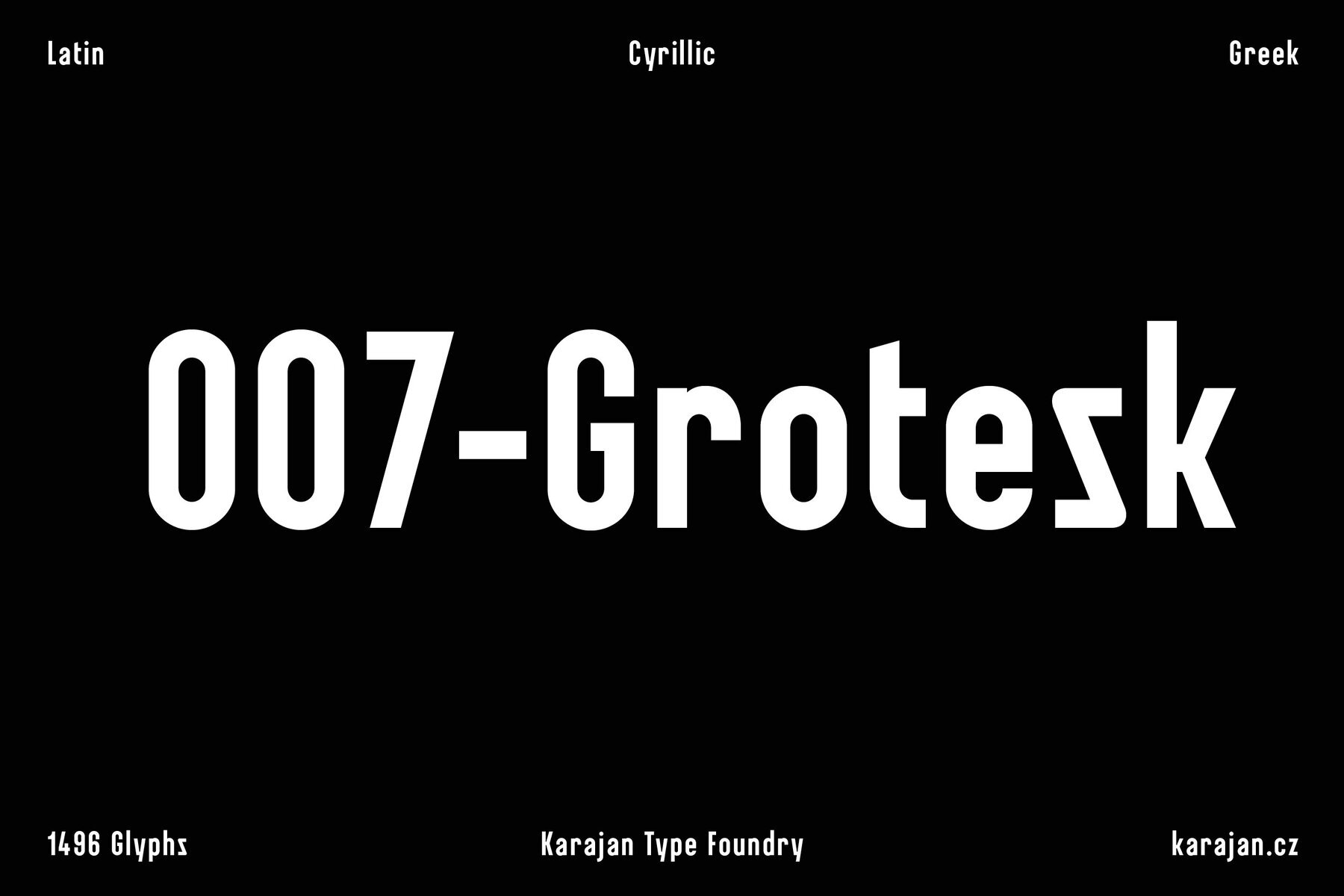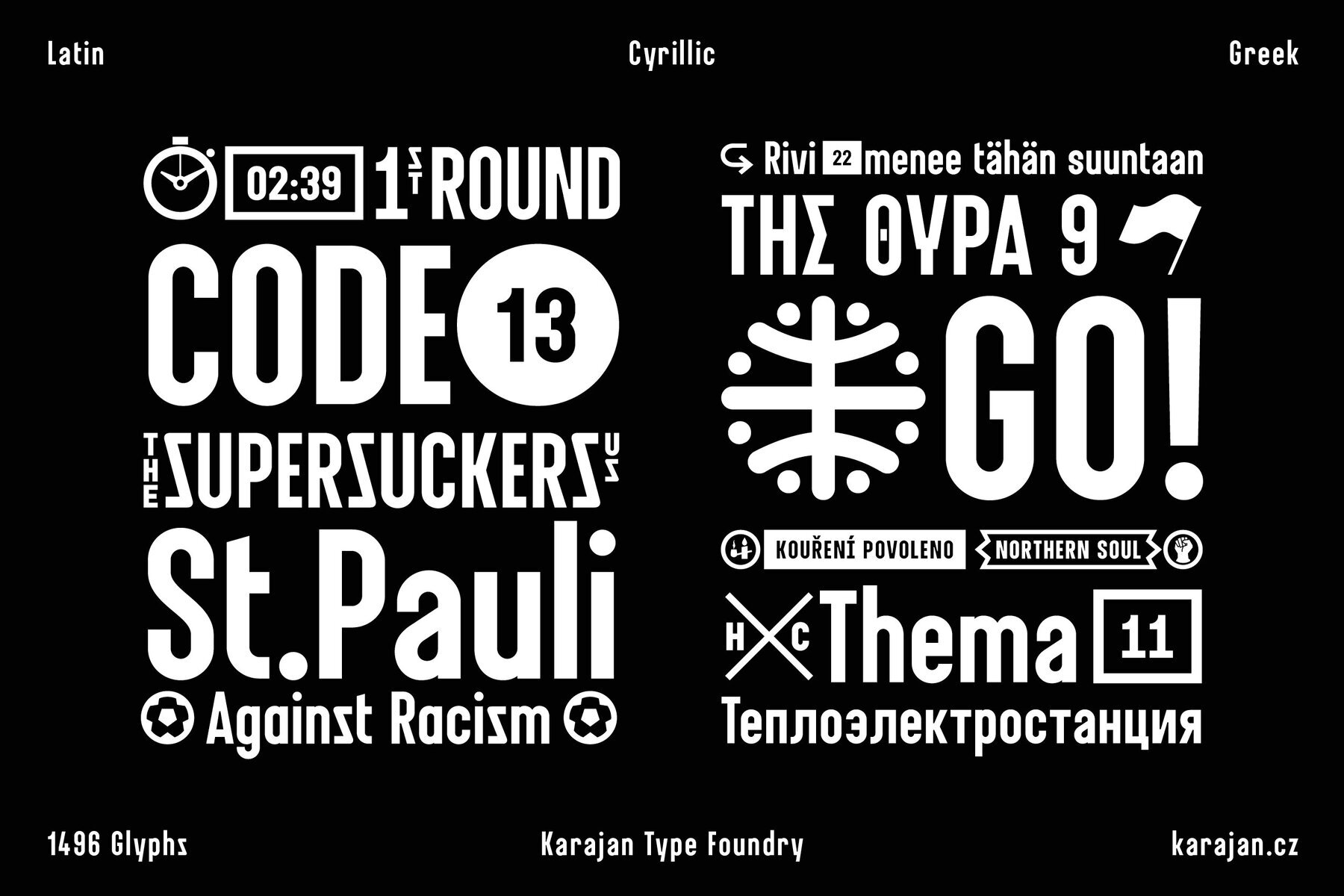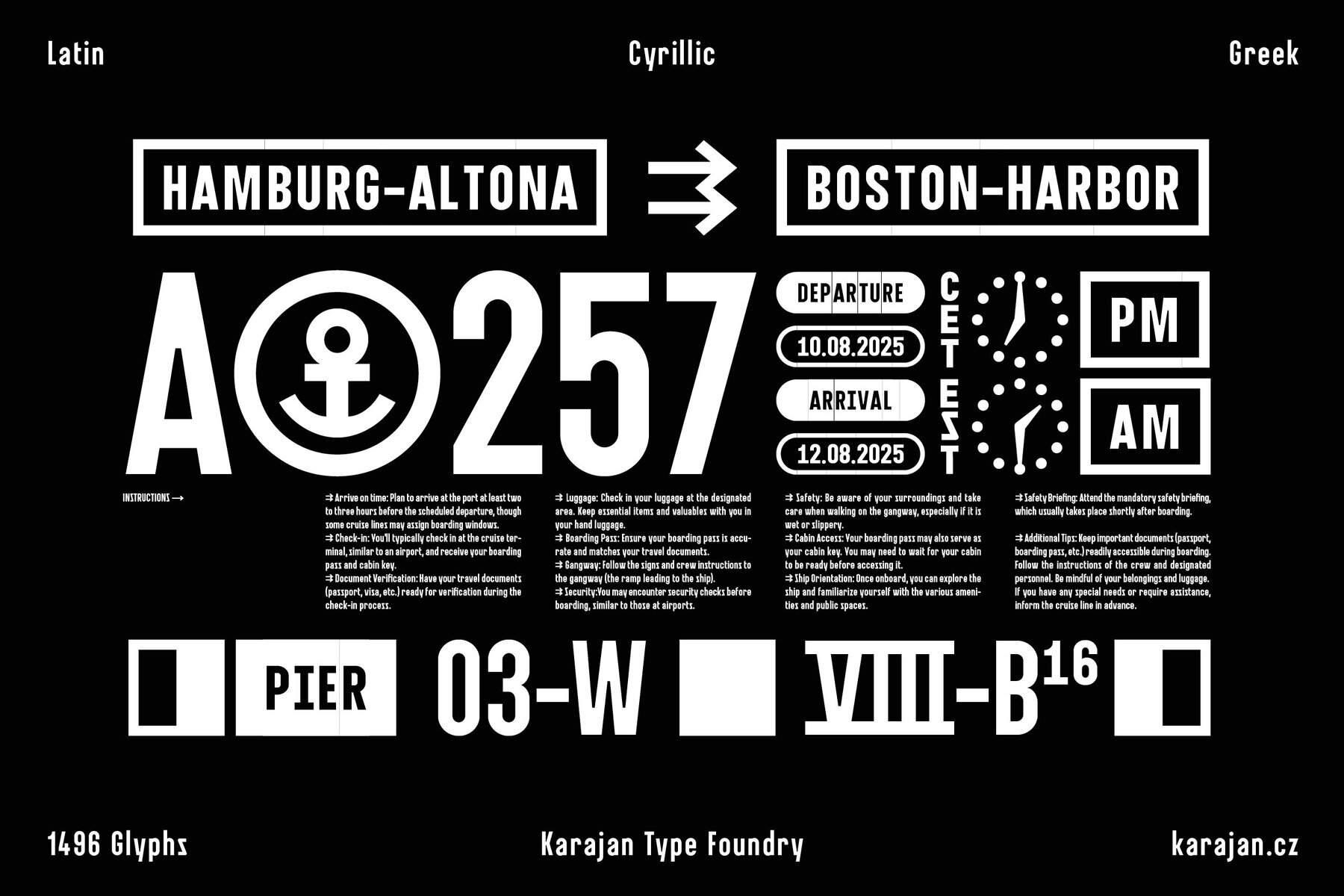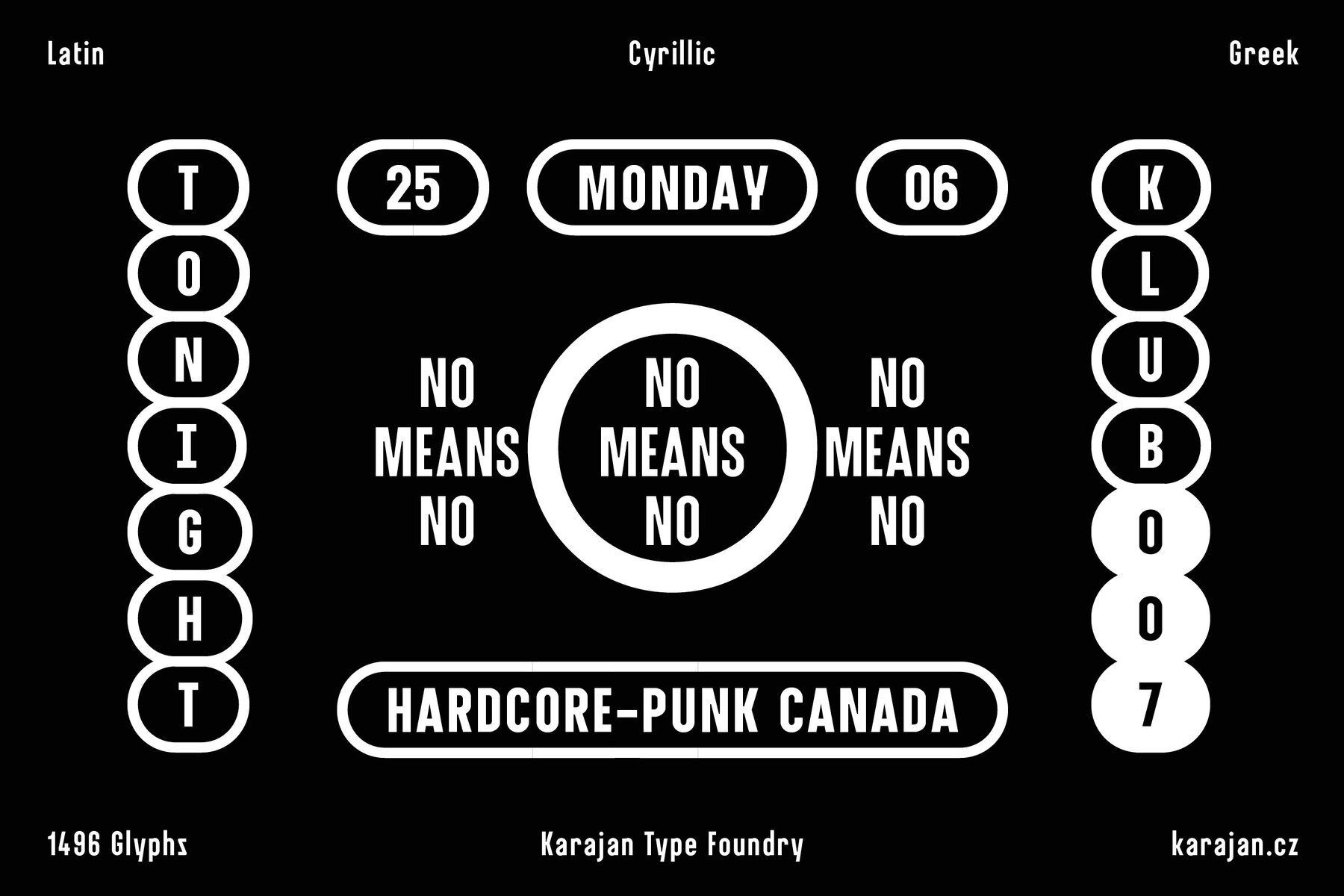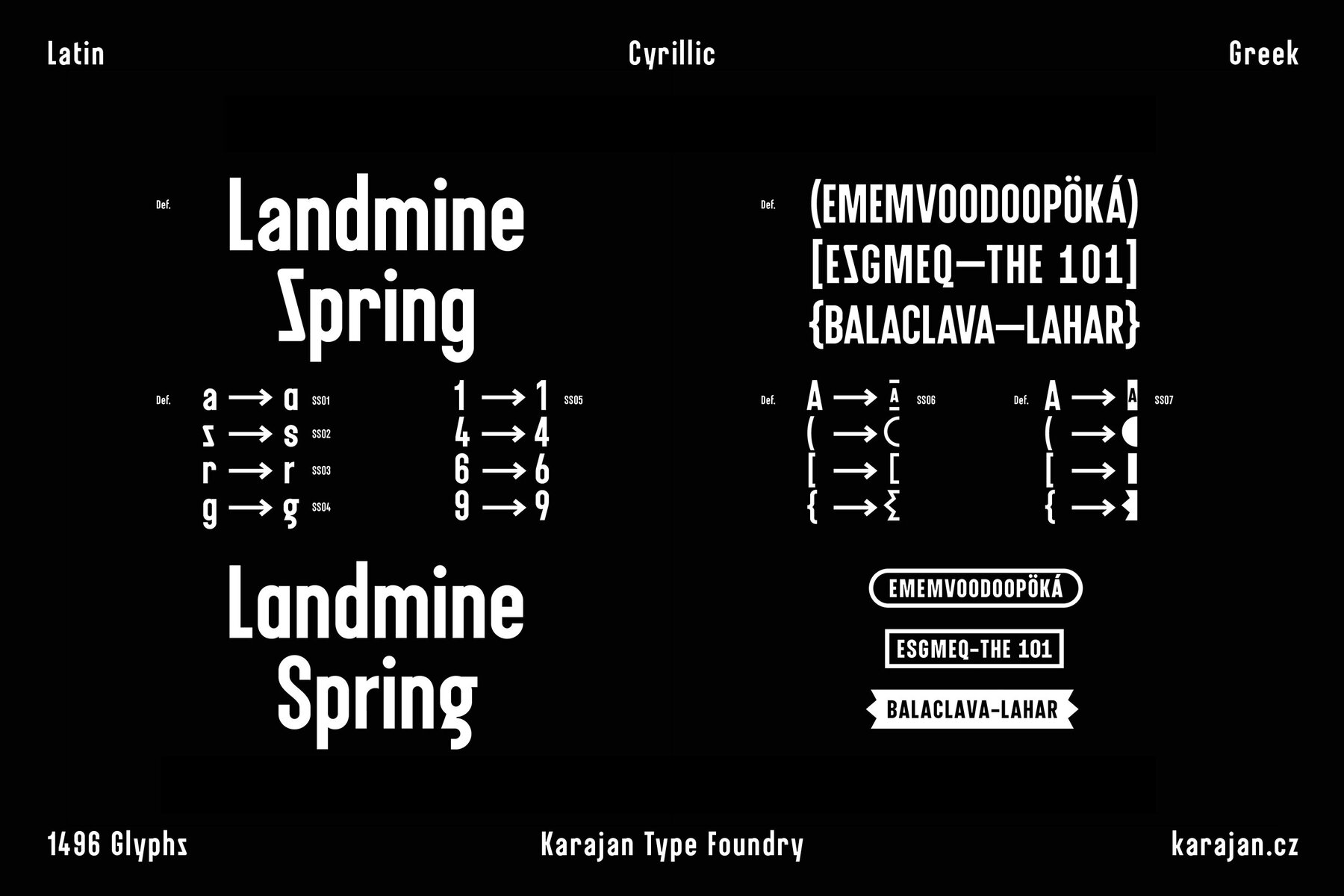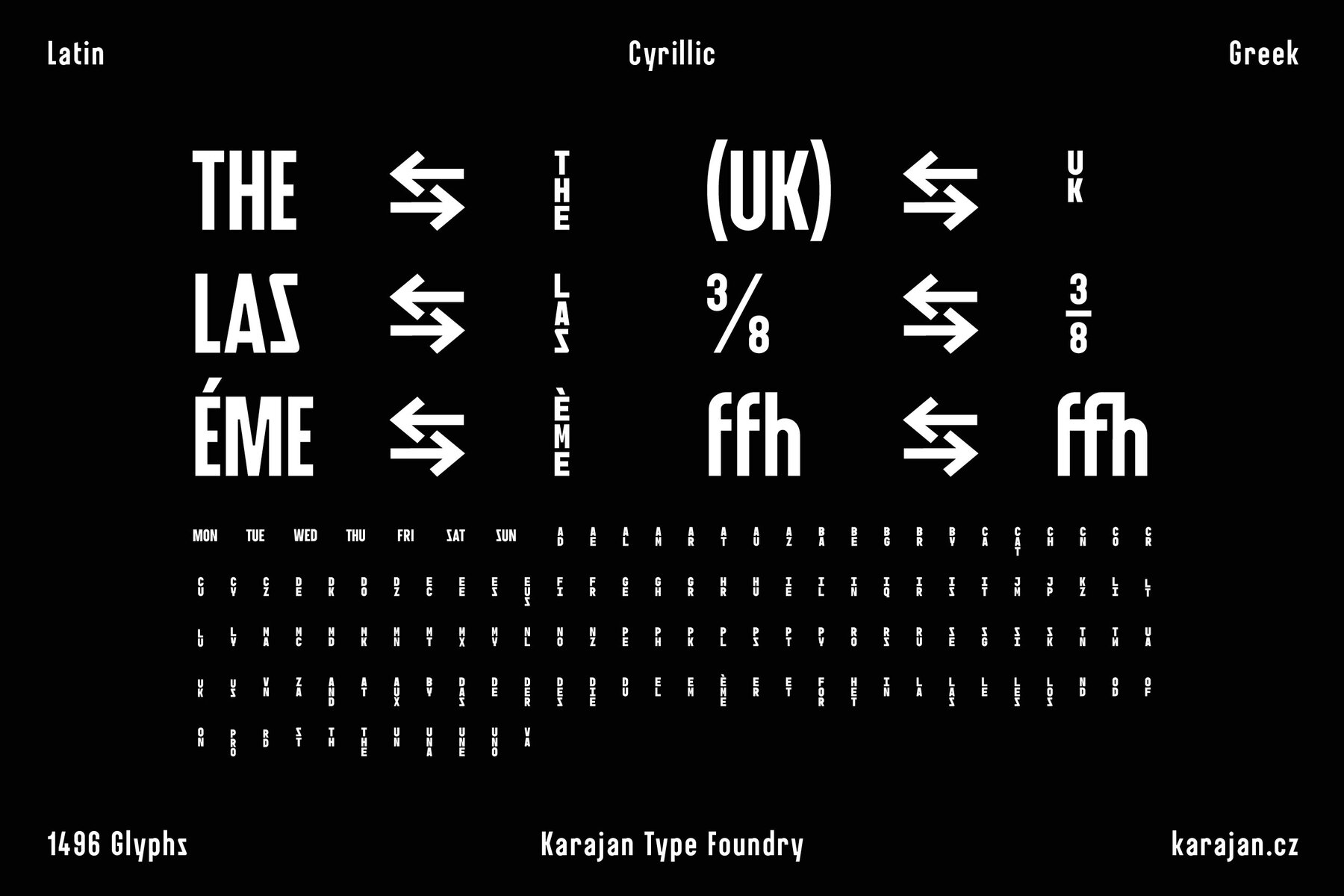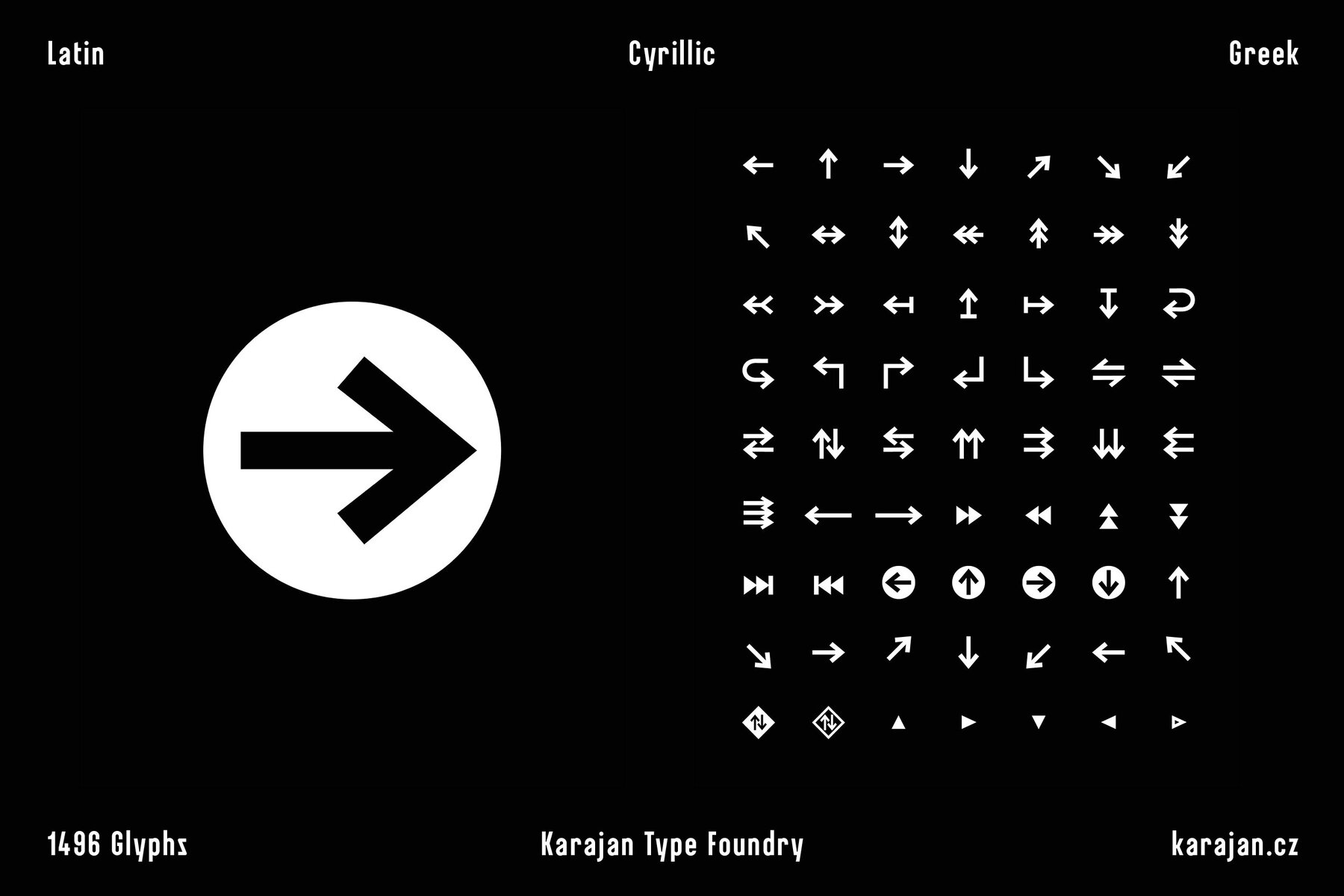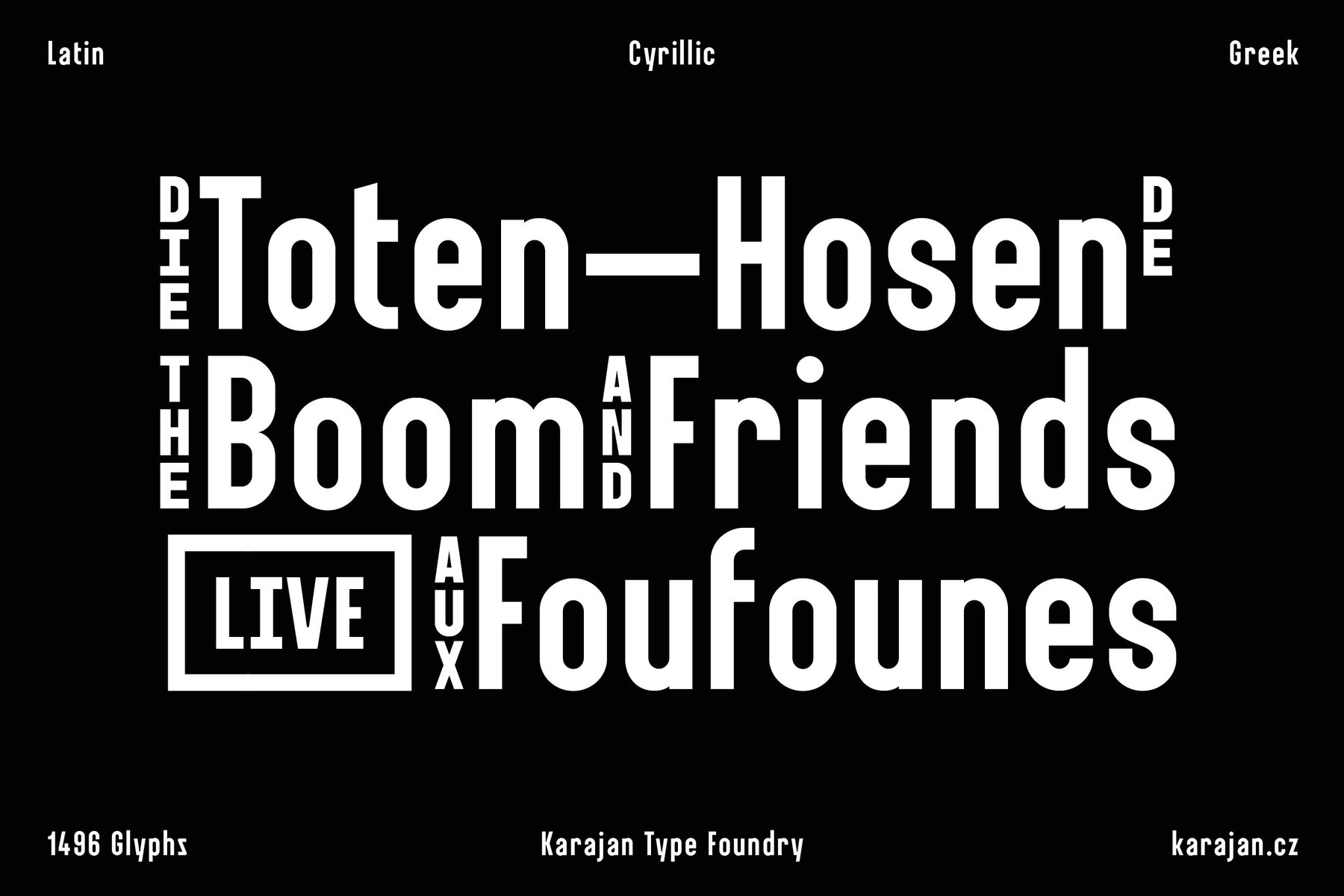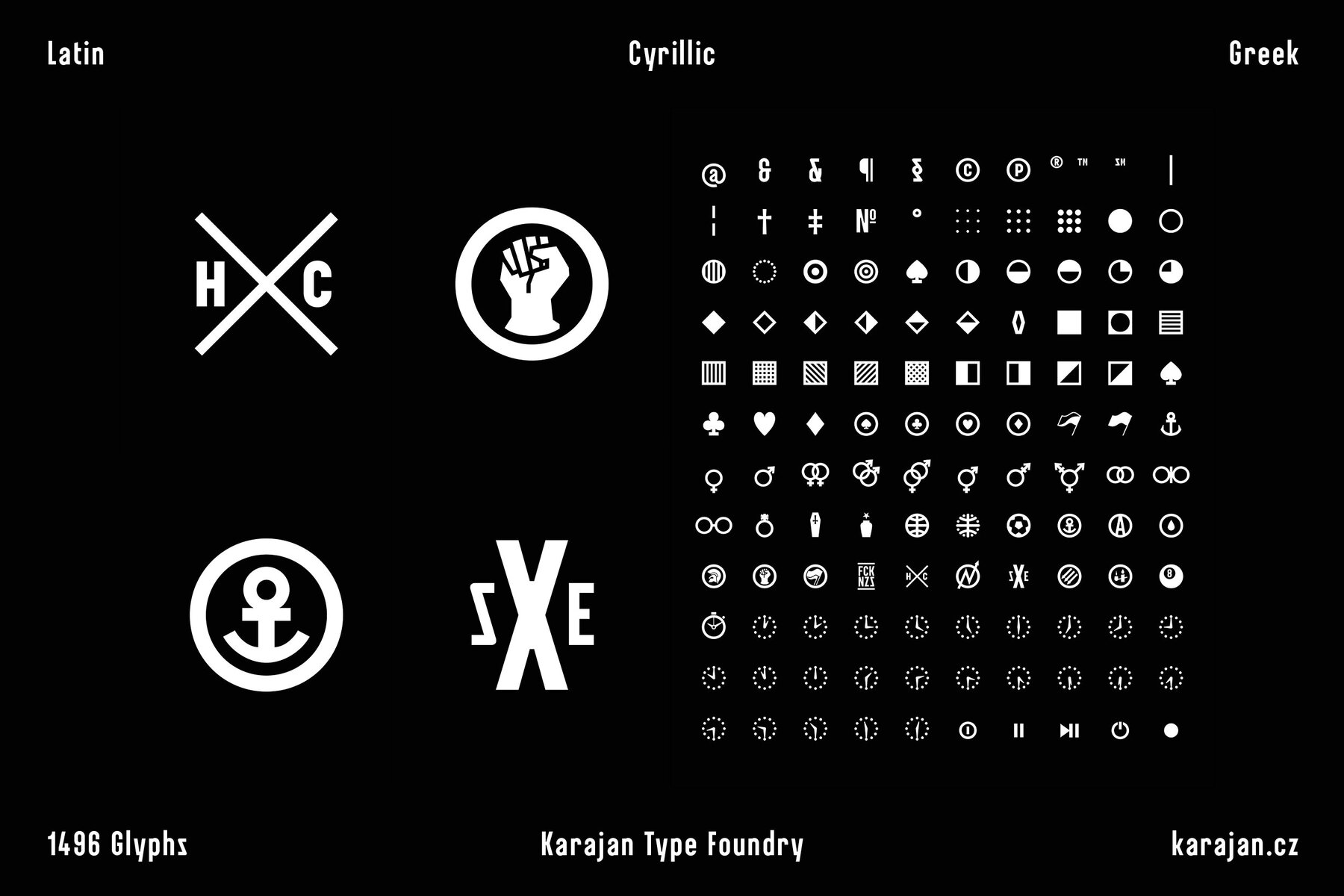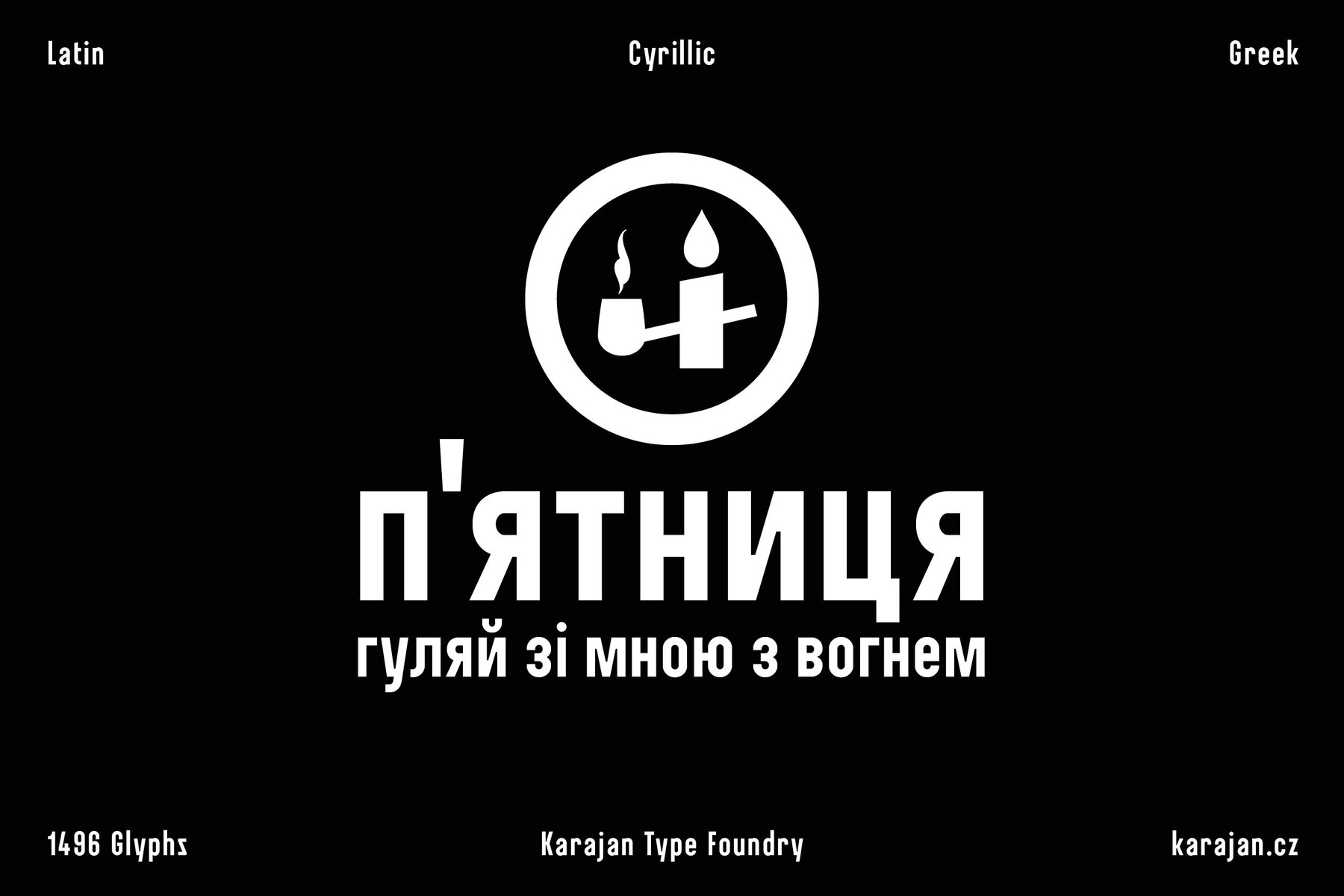
007 Grotesk Font
This distinctive typeface pays homage to Klub 007 Strahov, the oldest surviving music venue in Czechia. This venue is renowned for its eclectic mix of music genres, including punk, hip hop, ska, reggae, and rockabilly, making it a cultural beacon for connoisseurs and enthusiasts alike. Originally designed for typesetting the club's monthly programs, the typeface is proportionally high, suitable for both text and headline use. It features an array of glyphs, including discretionary ligatures for international vehicle registration codes and day name abbreviations. Additionally, it offers genre and activist pictograms and an extended set of arrows. This typeface forms part of a new identity crafted by Karel Haloun, Petr Kudláček, and Jan Arndt, which elegantly incorporates fragments of historical program flyers using a simple grid in its logotype.Typeface Inspired by Klub 007 Strahov